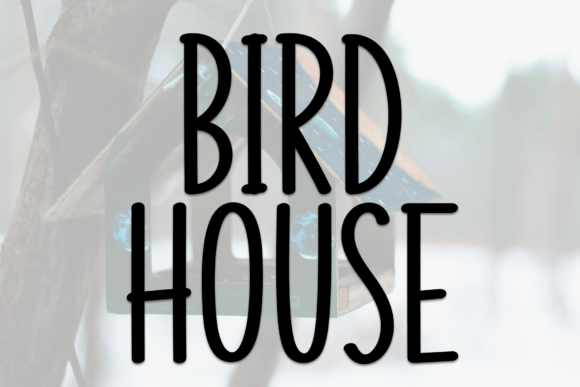
The Perfect Blend of Fun and Function: Bird House Font
Have you ever been brainstorming a new project and suddenly, the perfect font pops into your head? That’s exactly what happened to me when I stumbled upon Bird House Font. Its playful, handwritten style is like a breath of fresh air, instantly elevating any design project with a fun, energetic feel.
Bird House Font is a bold, marker-inspired font that’s perfect for adding a sporty twist to your text. Whether you’re designing a brochure, a website, or a social media post, this font is sure to make your content stand out. Its casual vibe makes it a valuable asset for designers looking to add a touch of whimsy to their projects.
Bird House Font Key Features
- Font Family: Bird House Font is a unique, hand-drawn sans-serif font family.
- Unique Characteristics: Features hand-drawn, organic shapes and a playful, whimsical feel.
Bird House Font Review
Overall, I have mixed feelings about the Bird House Font. While it has some great features, it also has some limitations that may affect its usability in certain designs.
- Unique aesthetic: The Bird House Font has a distinctive, whimsical feel that’s perfect for projects that need a touch of personality.
- Good for hand-lettering: The font’s irregularities make it well-suited for hand-lettering and creative typography.
- Wide range of styles: The font comes in multiple weights and styles, giving you plenty of options for customization.
- Limited legibility: The font’s unique features can make it difficult to read at small sizes or in situations where clarity is crucial.
- Not ideal for body text: While the font is great for headlines and titles, it may not be the best choice for large blocks of body text.
- No OpenType features: The font lacks advanced features like ligatures, swashes, and contextual alternates, which can limit its use in more complex designs.
While the Bird House Font has some great qualities, its limitations may make it less suitable for certain projects. However, its unique aesthetic and versatility make it a great choice for designs that require a creative, whimsical touch.
Getting the Most Out of the Bird House Font
For optimal results, use the Bird House Font in combination with other whimsical design elements, such as illustrations and graphics. Experiment with different font sizes and colors to create a visually appealing design.
The Bird House Font is suitable for a variety of design projects, including:
- Party decorations and signage
- Gift tags and wrapping paper